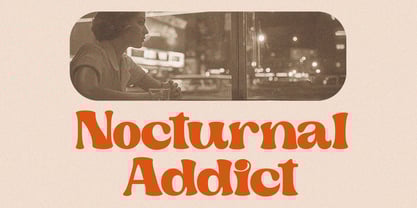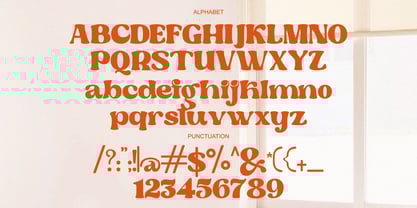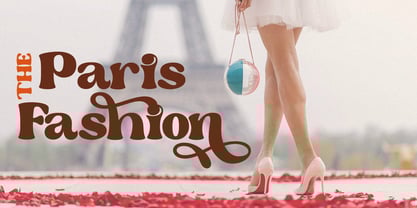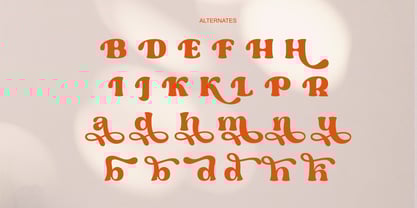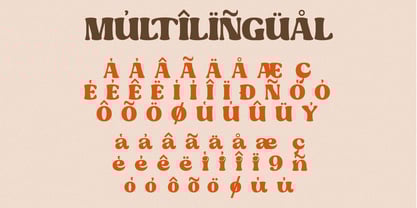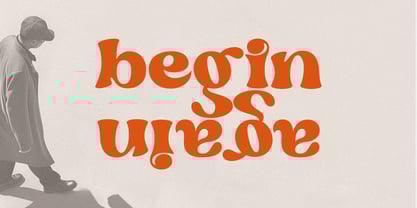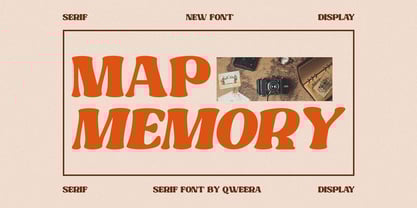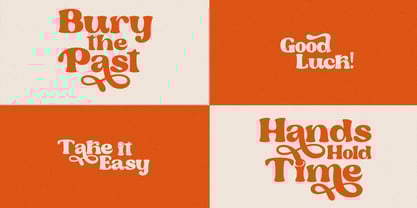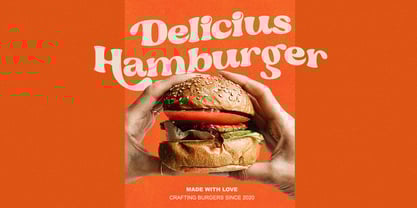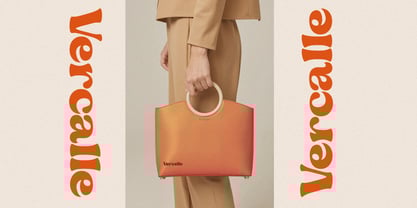
Chill Reality
by Qweera Studio
The Chill Reality Font Family was designed by Idhham Cholid Rikzano Yahya and published by Qweera Studio. Chill Reality contains 2 styles and family package options.
Chill Reality - Elegant Display Serif Font for Sophisticated Branding
Chill Reality is a refined display serif font that masterfully balances contemporary elegance with artistic flair. Featuring both regular and italic versions with stylistic alternates and ligatures, this typeface is expertly crafted for premium branding, luxury logos, high-end packaging, and editorial designs that demand distinctive character.
Where Modern Elegance Meets Artistic Expression
With its sharp serifs and fluid italics, Chill Reality offers unmatched versatility for brands seeking both sophistication and personality. The carefully designed alternates and ligatures enable you to create captivating typographic compositions with perfect harmony and style.
Premium Features Include:
• Elegant Display Serif – Striking letterforms with refined proportions
• Dual Style Versions – Regular & italic for dynamic visual impact
• Stylistic Alternates – 30+ unique glyph variations
• Artistic Ligatures – Seamless character connections
• Universal Application – From perfume packaging to magazine spreads
• Extended Language Support – Comprehensive Latin character set
Elevate Your Brand with Chill Reality's Distinctive Charm Ideal for:
• Luxury fashion branding
• Cosmetic product packaging
• High-end restaurant identities
• Editorial headline typography
• Sophisticated event collateral